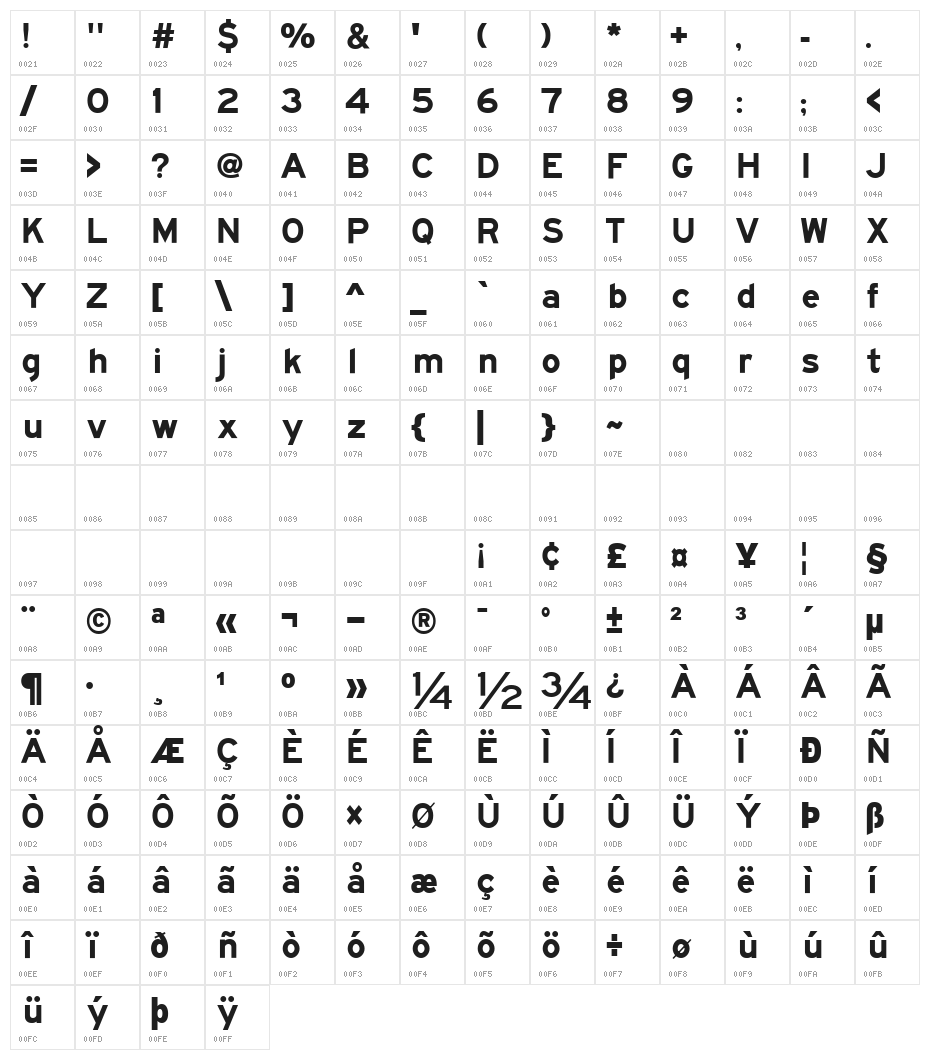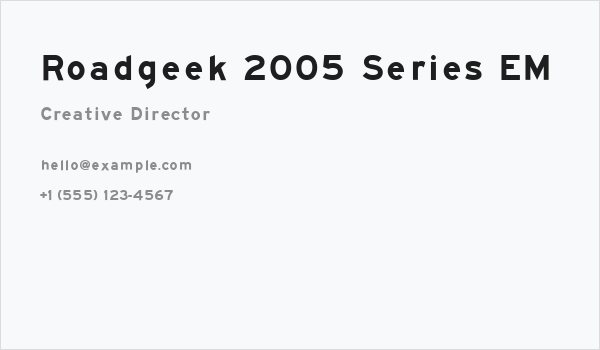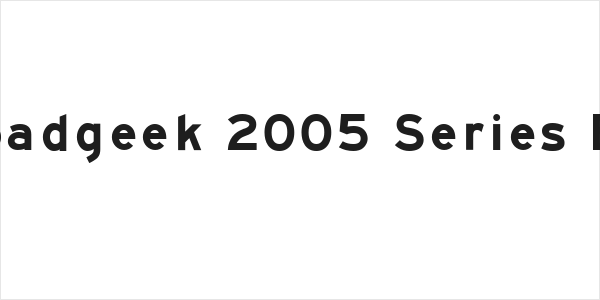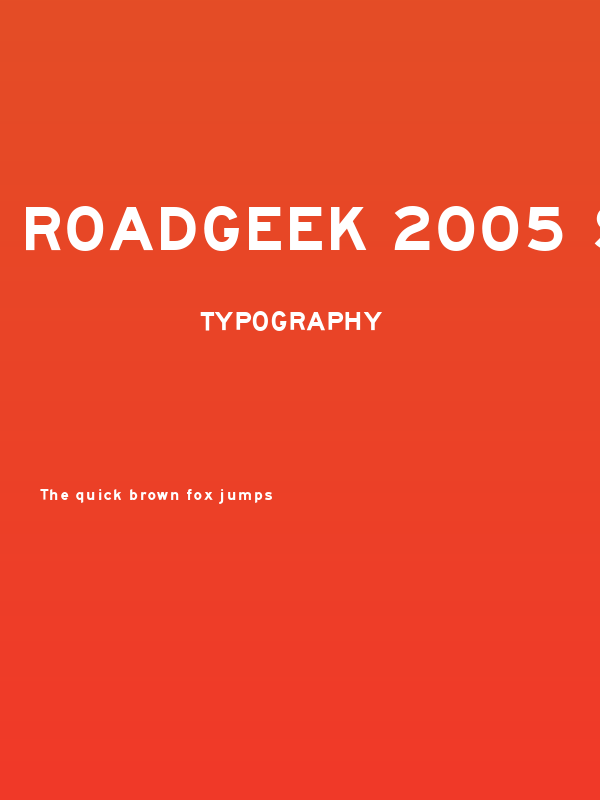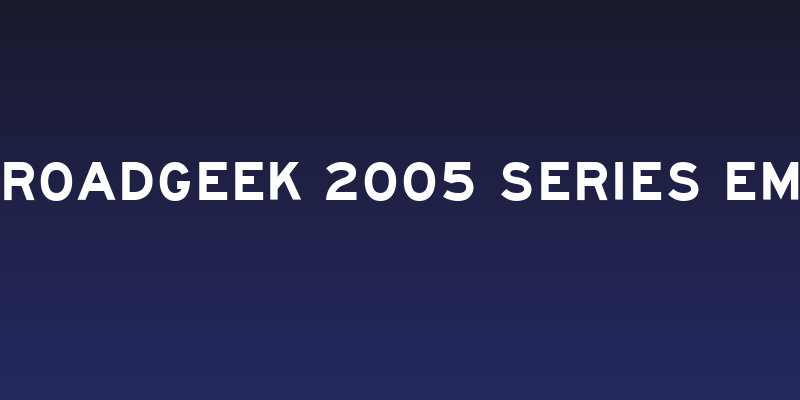
Roadgeek 2005 Series EM Font
Roadgeek 2005 Series EM Description
This font features a clean, bold sans-serif style with uniform stroke widths, providing excellent readability and clarity. The characters are well-proportioned, with a modern and straightforward appearance. The uppercase letters are slightly taller than the lowercase, which are rounded and consistent in design. The numerals are clear and distinct, making them easily legible. Special characters are designed to match the overall aesthetic, maintaining the font's cohesive look. This font is suitable for various applications where clarity and modernity are desired.
| Use Case | Headlines, Signage, Displays |
| Proposed Projects | Ideal for road signage, informational displays, branding, and digital interfaces where clarity is crucial. |